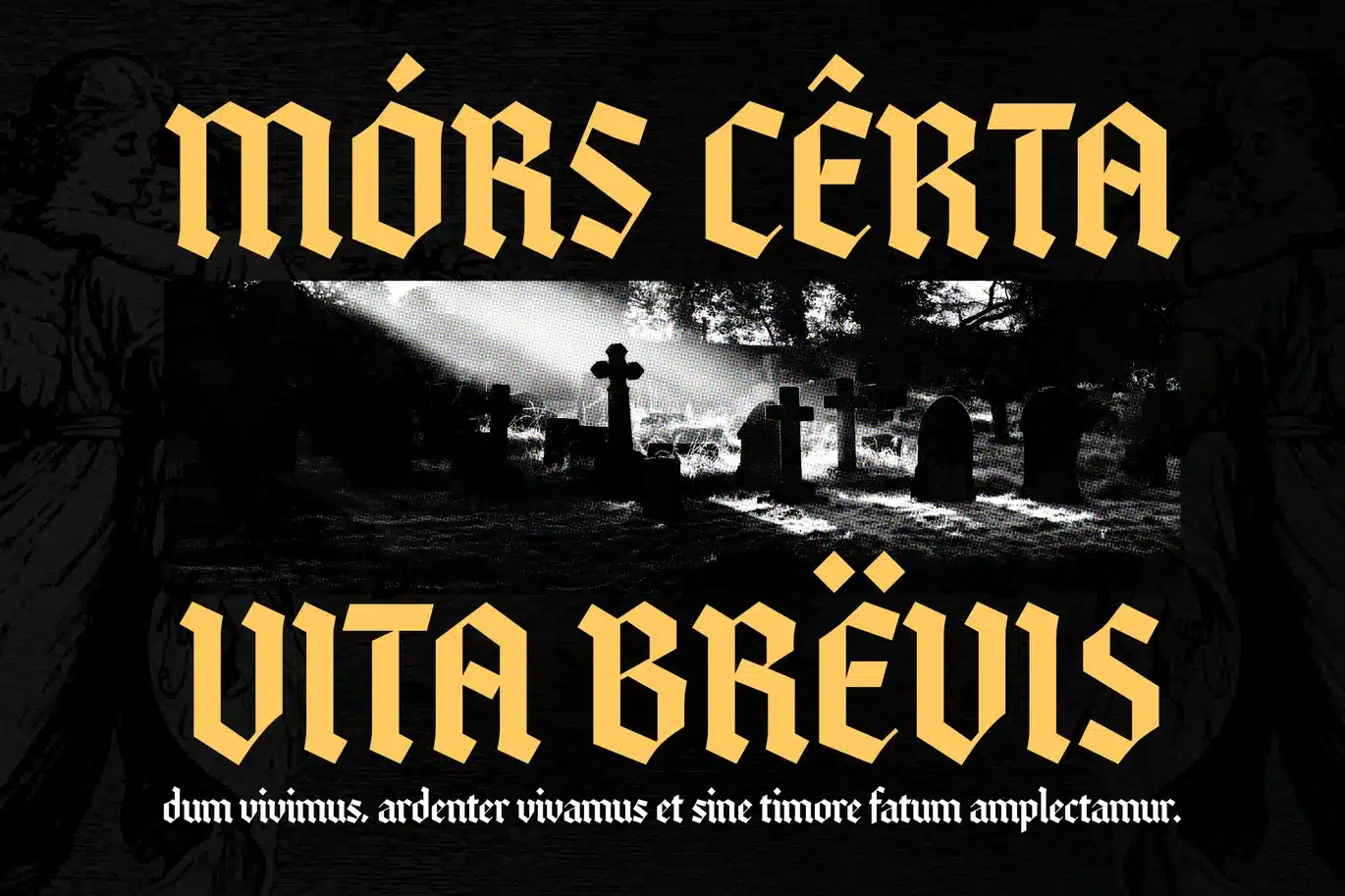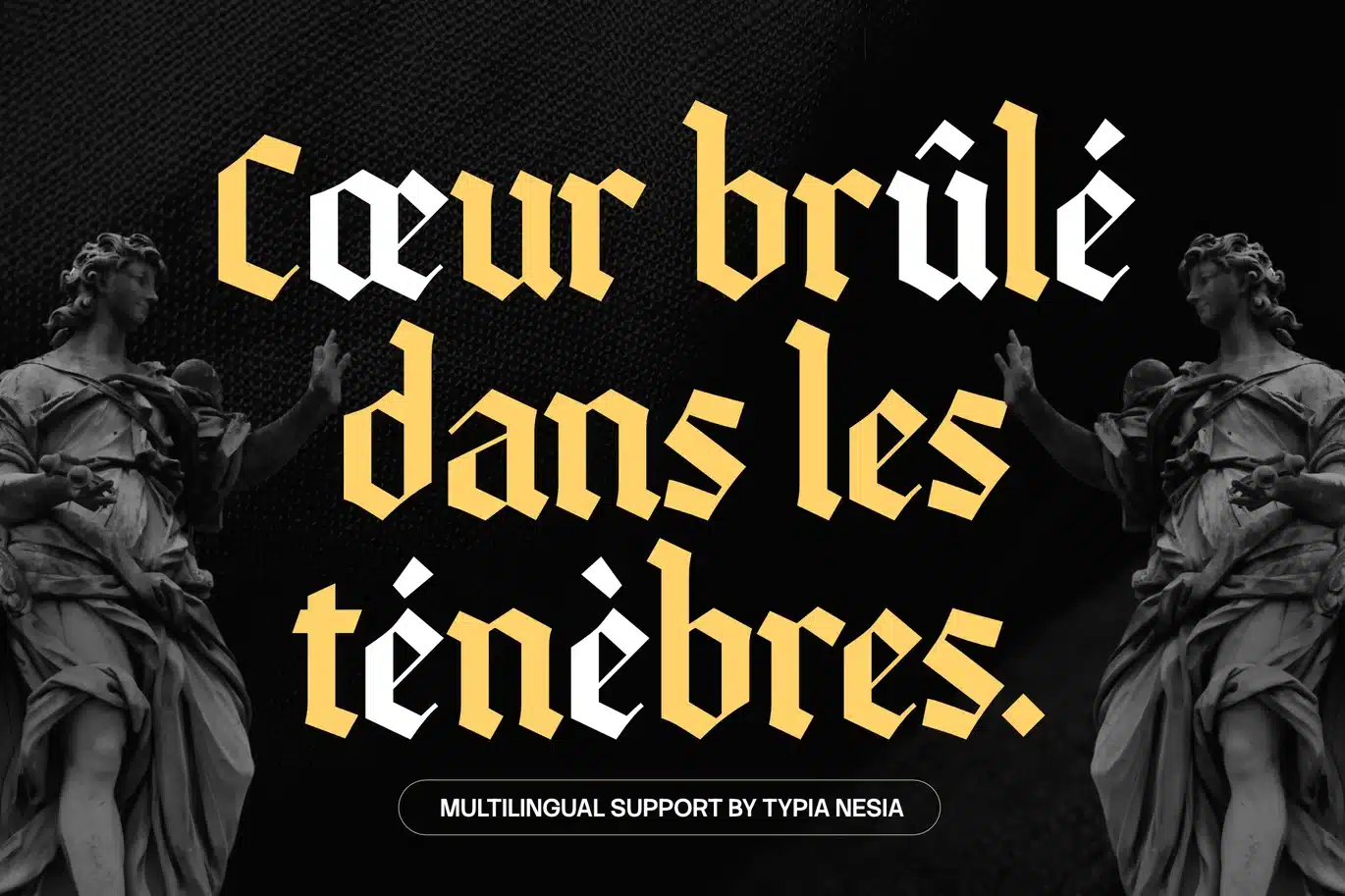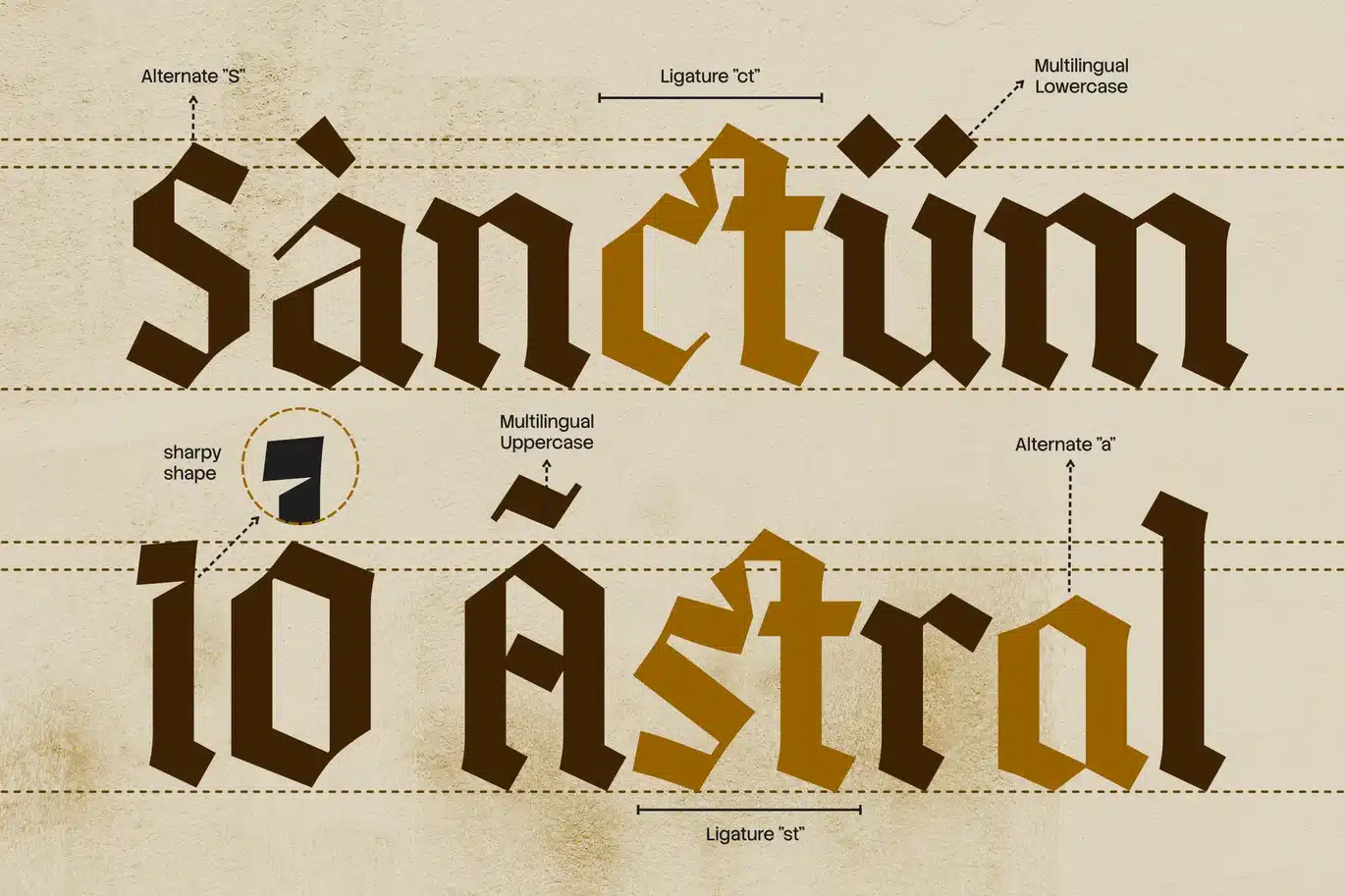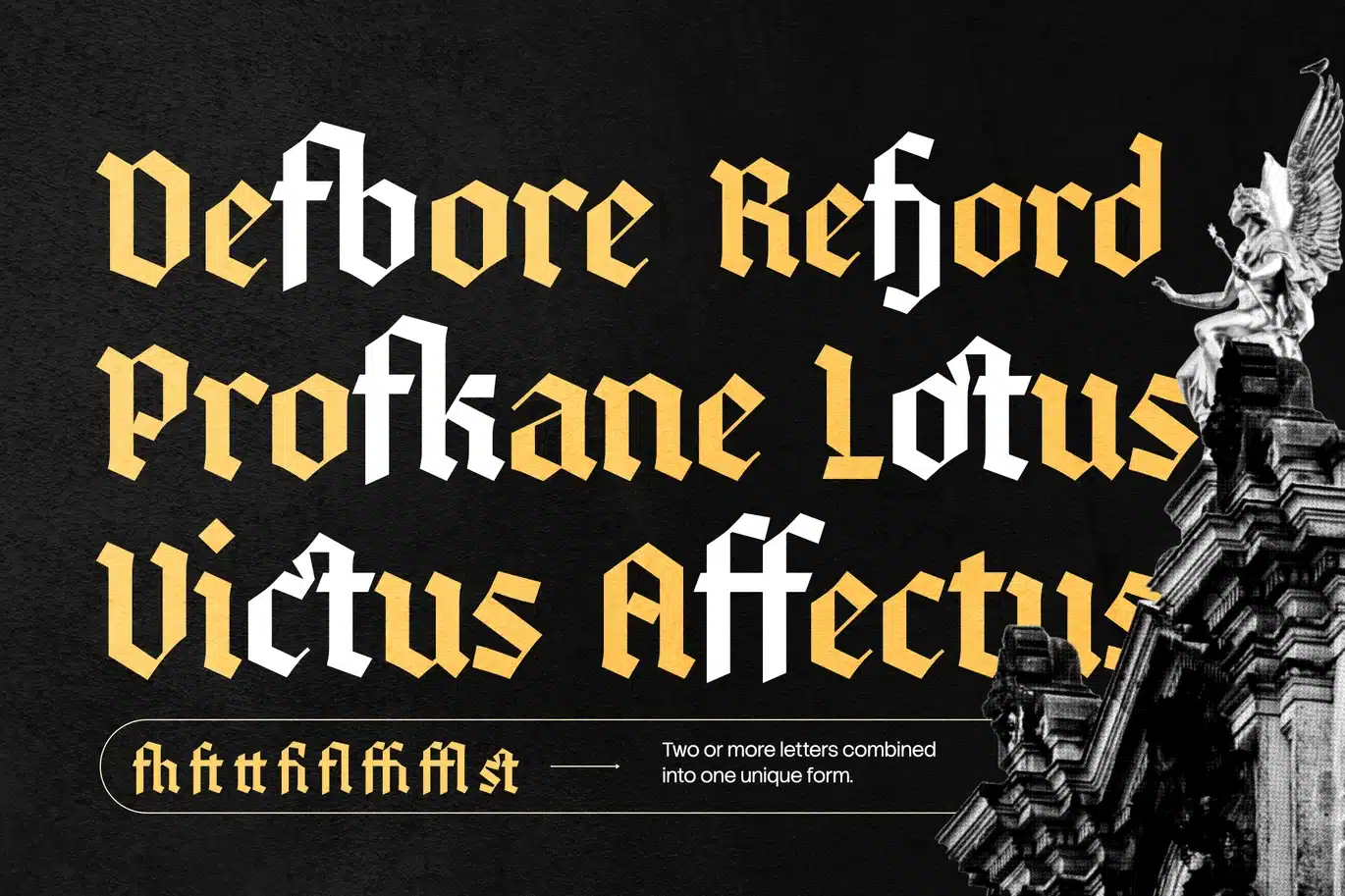
Quitestar – Modern Gothic Blackletter Font
Quitestar – Modern Gothic Blackletter Font - Classic Vintage Logo Display Font
Quitestar is a modern Gothic blackletter font that blends classic medieval and Old English influences with a bold contemporary edge. Designed with sharp, dramatic strokes and strong letterforms, it is ideal for logo design, music and band artwork, game titles, esports branding, horror posters, and any project that needs a touch of powerful Gothic and hardcore aesthetics.
Make your designs bold and fearless with Quitestar.